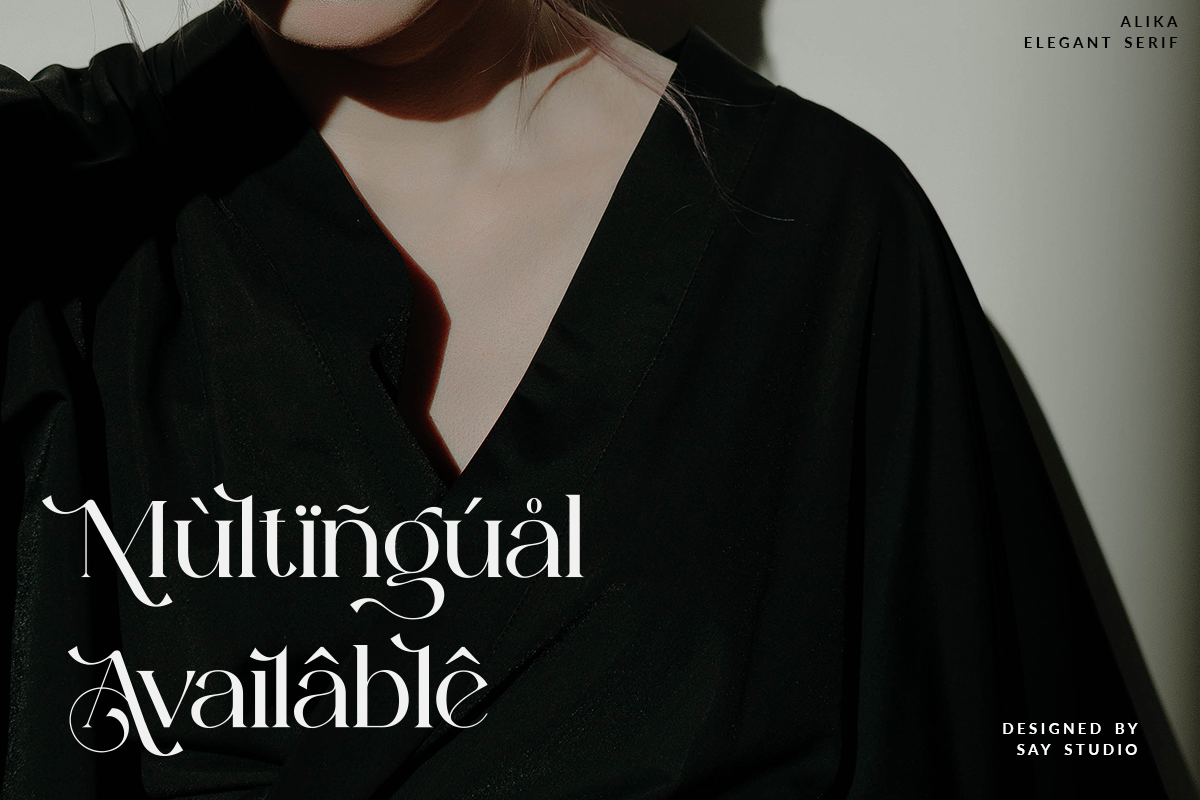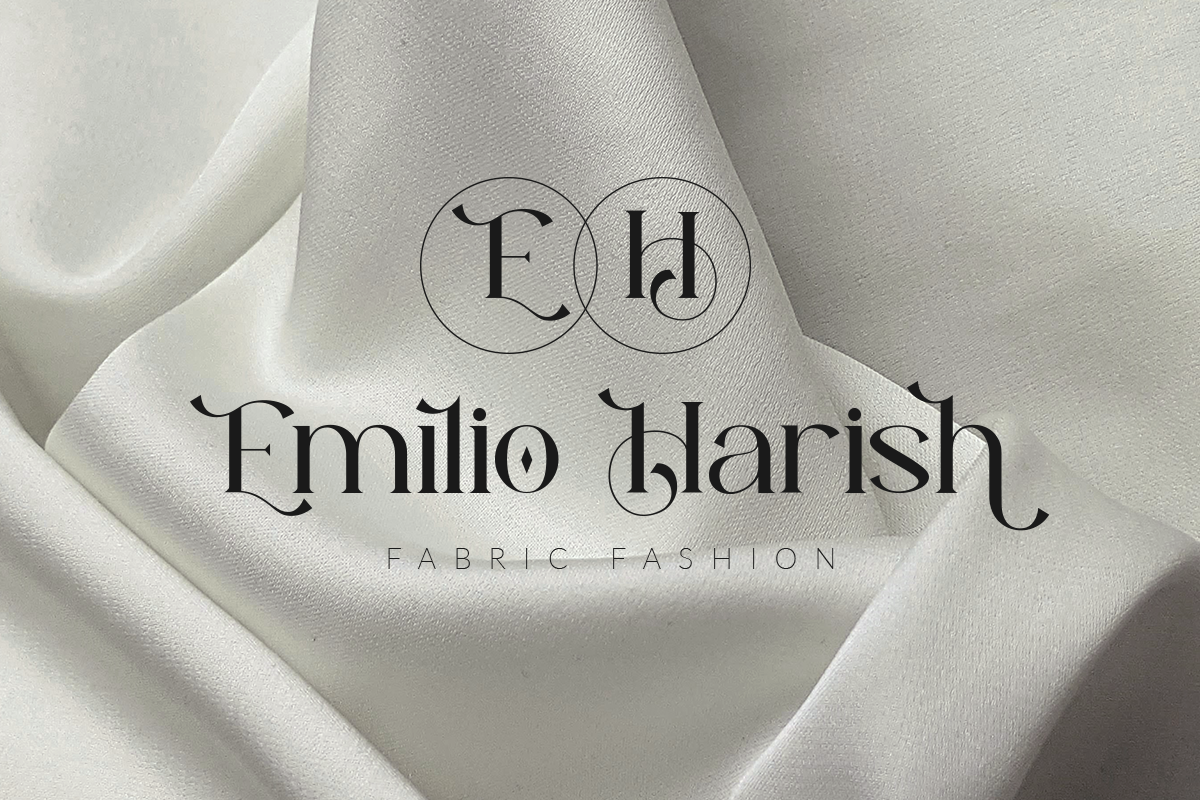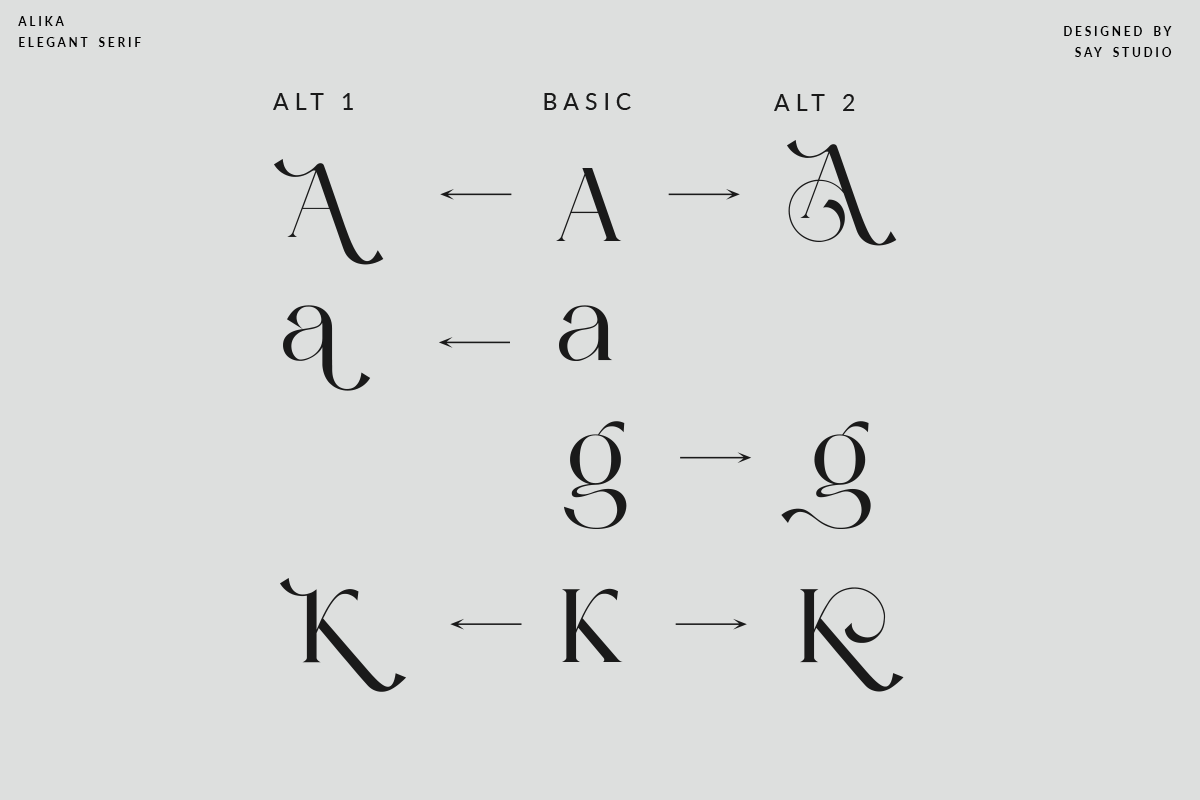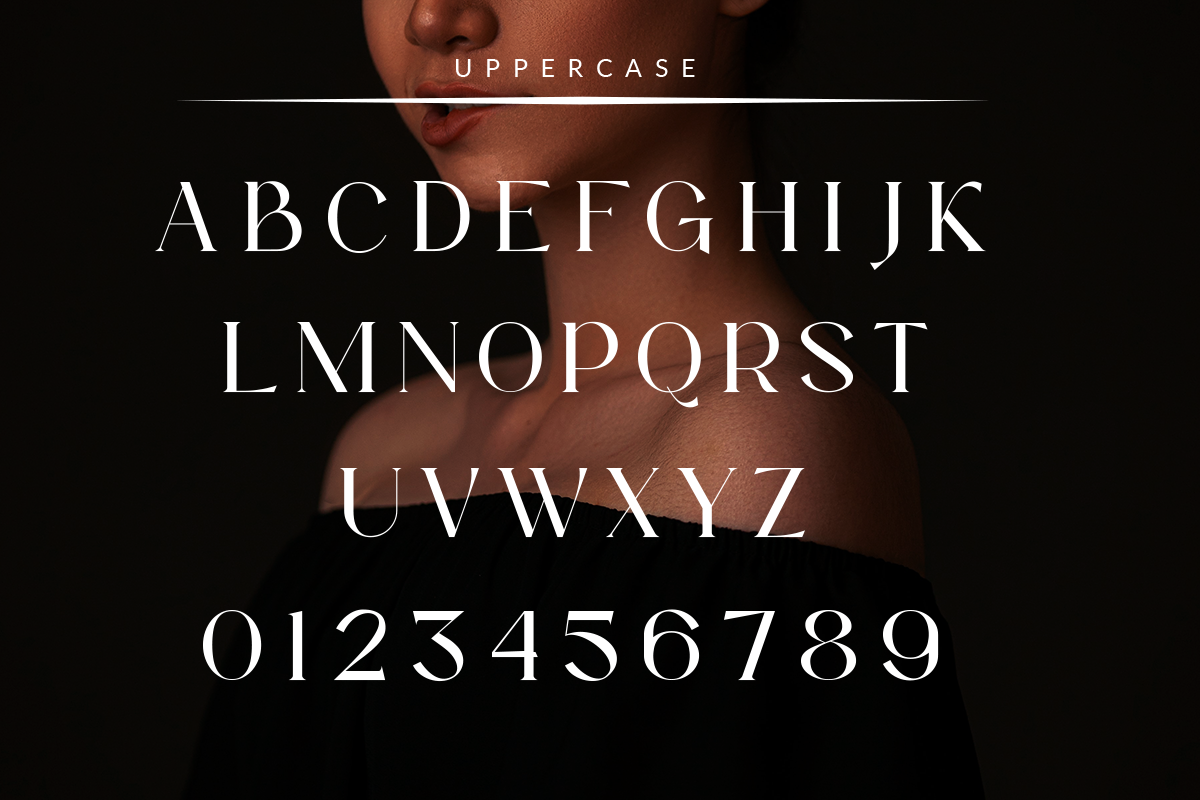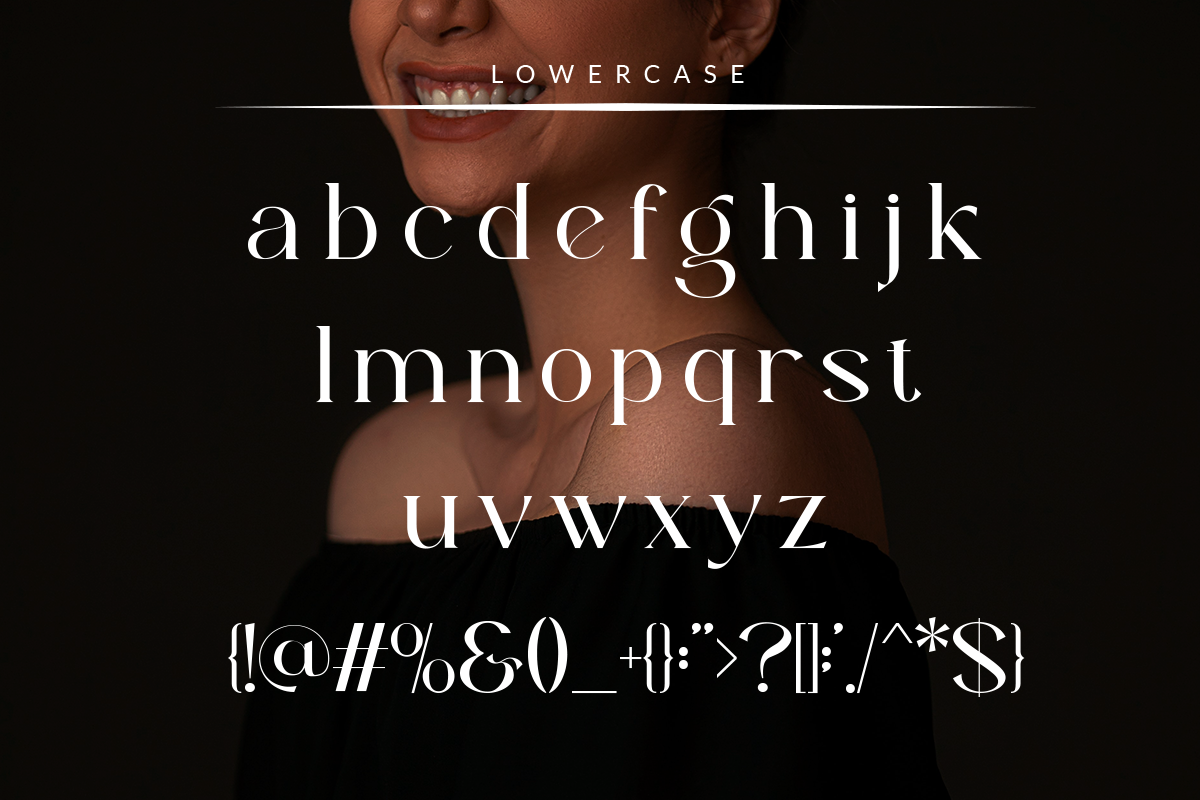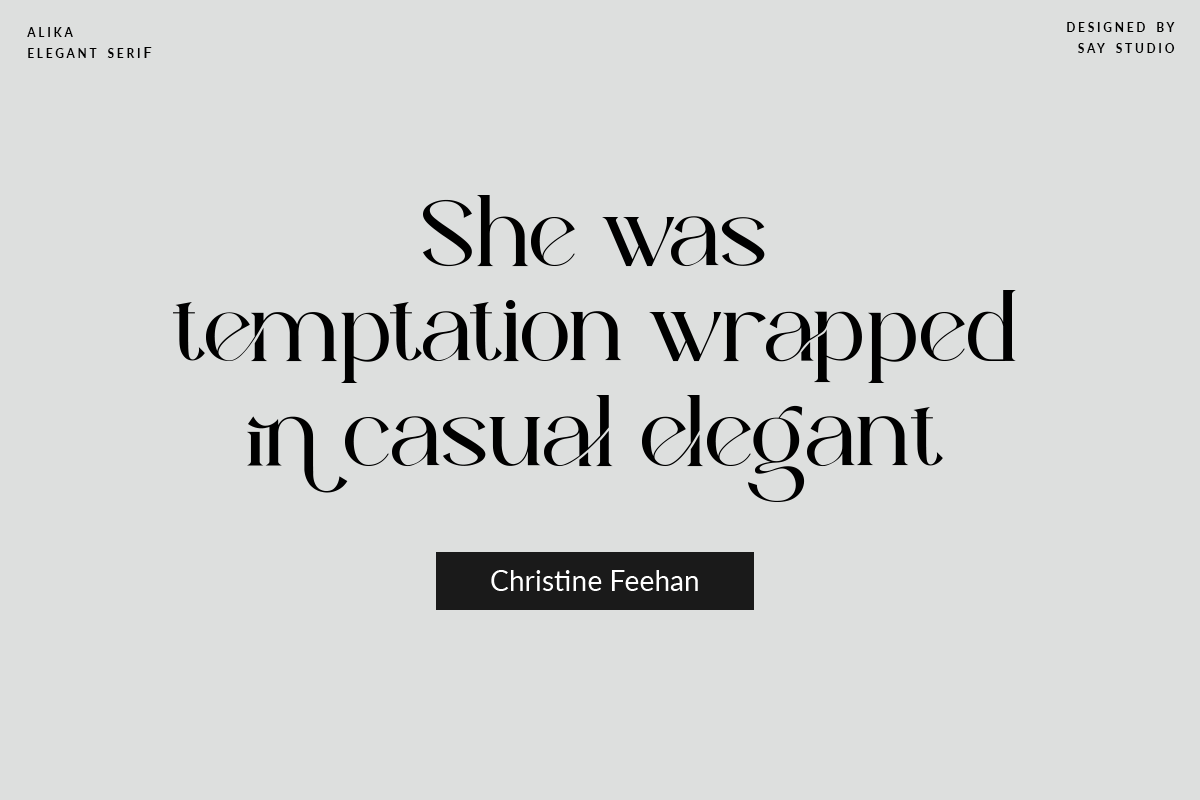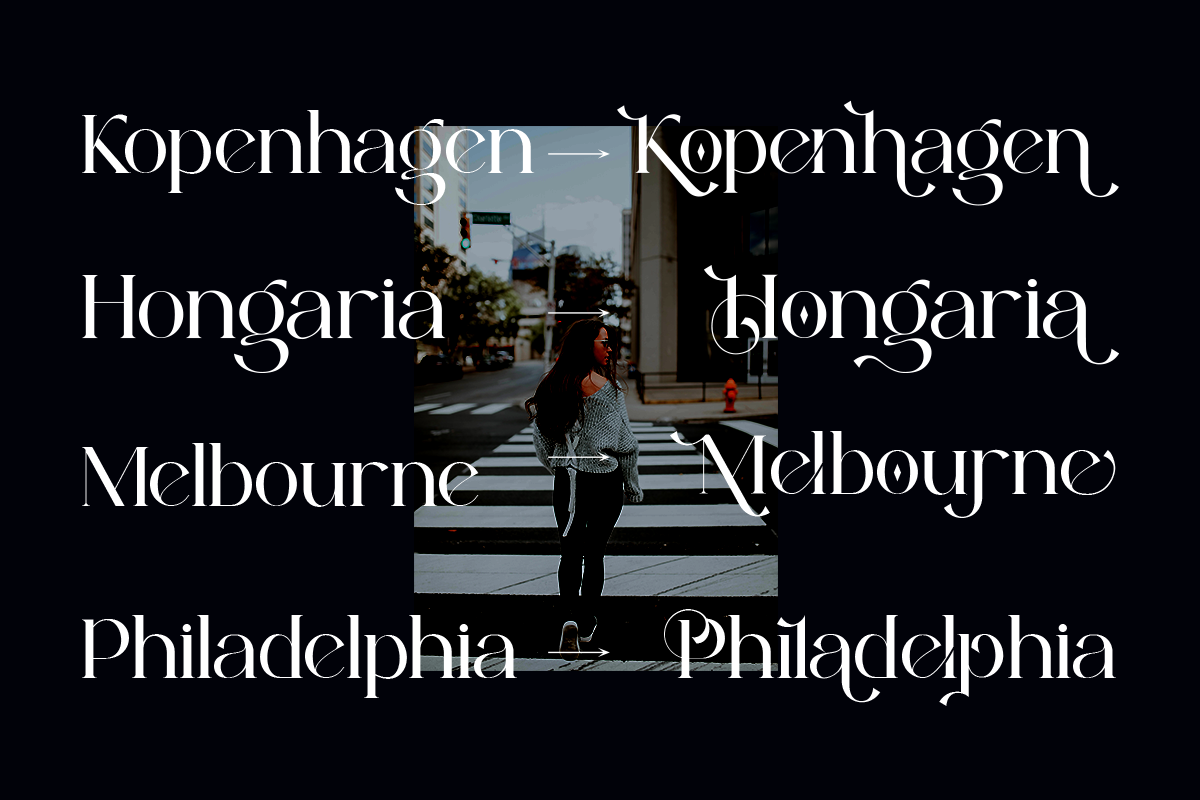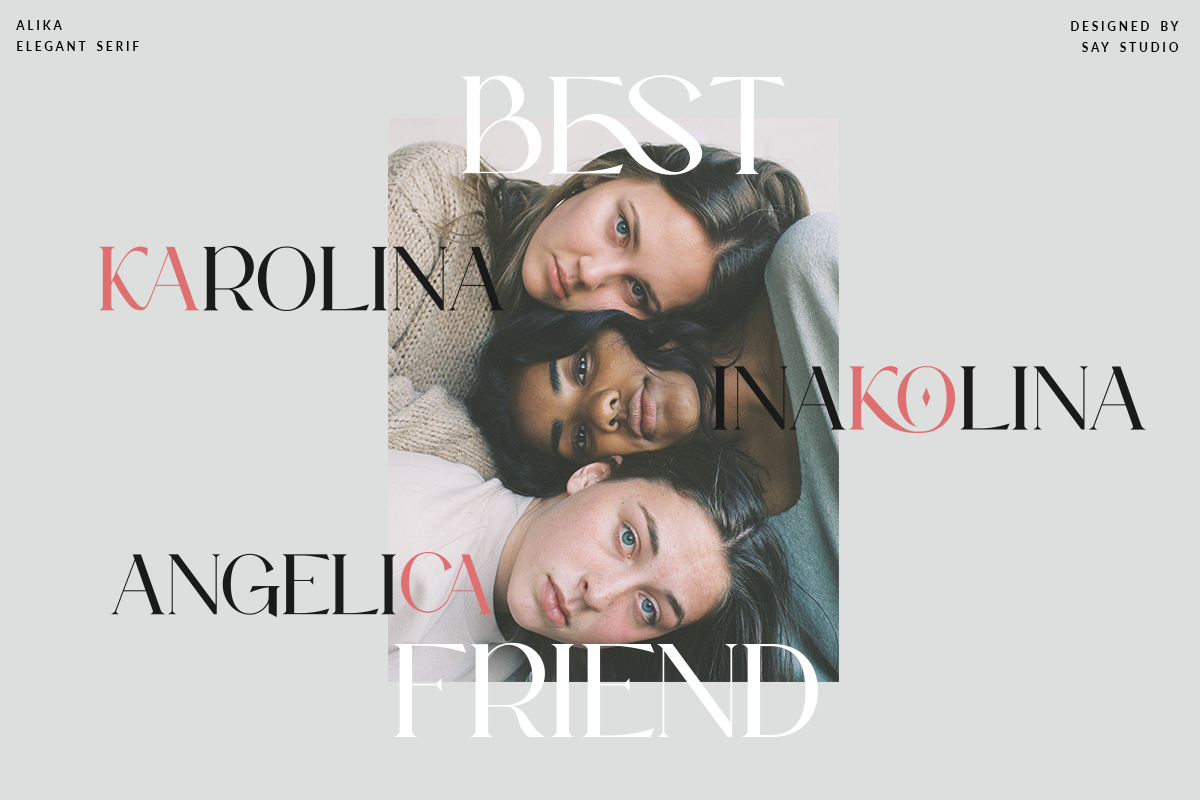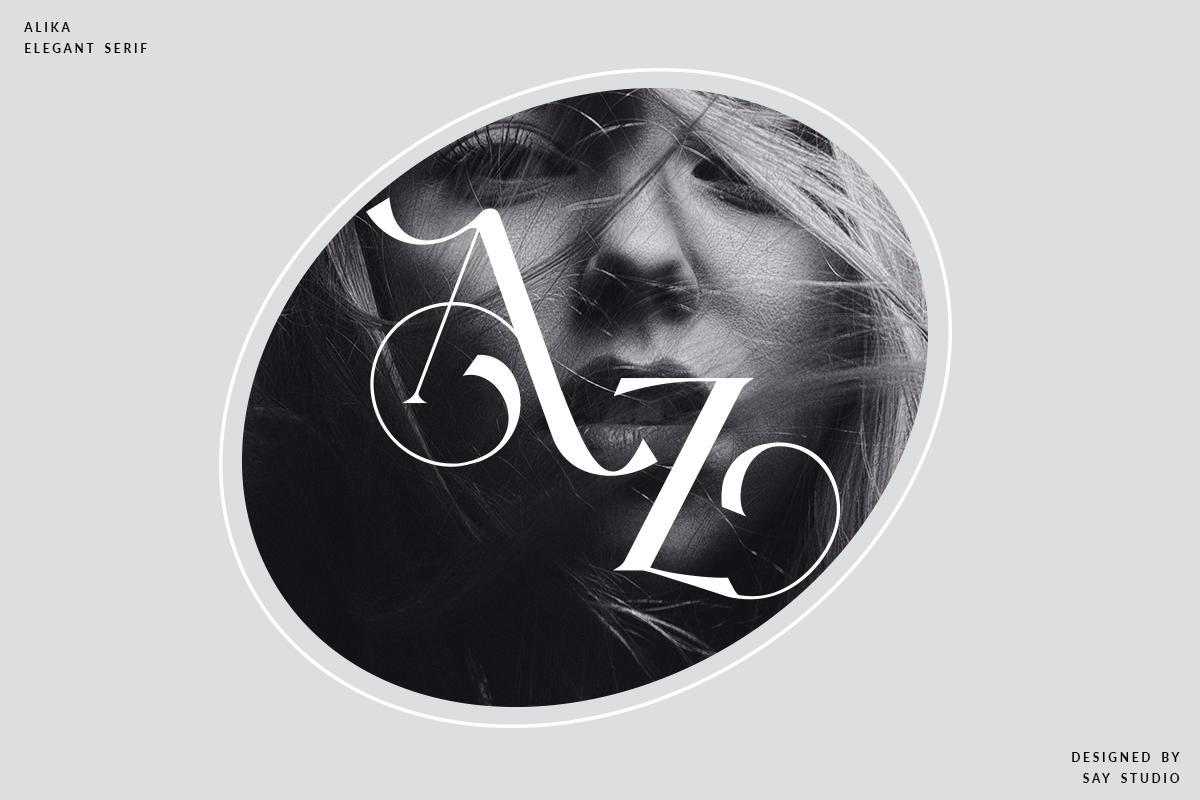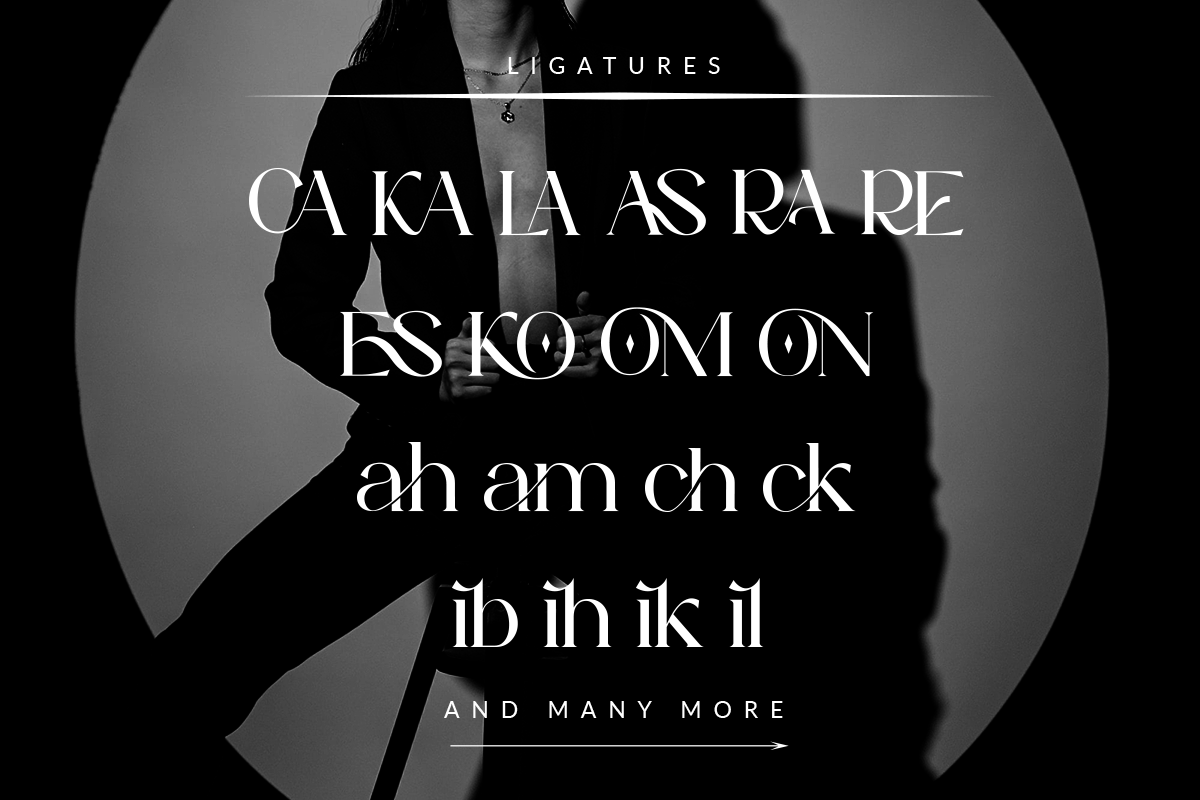
Alika - Elegant Serif
Alika - Elegant Serif Typeface
Alika is Elegant, graceful, and timeless typeface. Alika is a versatile with a timeless, classic appeal, over 77 alternates & 43 ligatures, multilingual support
Every letter has been hand-drawn and crafted with the upmost care. The variety of weights provide a range of choices that will help you find the best typographic character for your project. Alika well-suited for large display uses and high impact headlines. The available stylistic alternates and ligatures offer a number of different options that give your logo or business card a unique look. This high contrast serif typeface and offers comprehensive language support.
- 43 ligatures
- 77 alternate glyphs
- Comprehensive language support